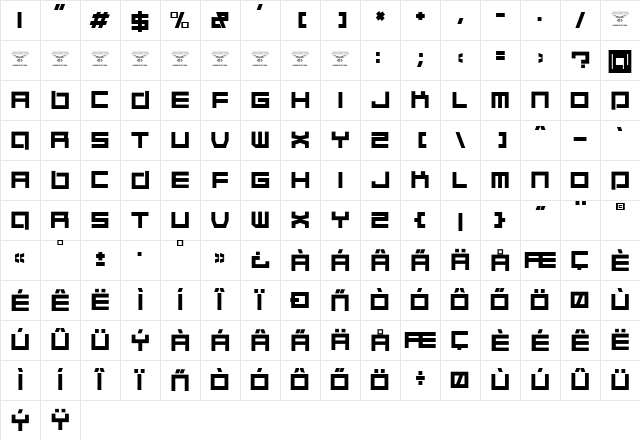
Quaalude hulk Regular Free Font
Quaalude hulk Regular
Foundry: Font Monger
Designer: Chris Vile
Quaalude hulk Family
Design Context for Quaalude hulk
Quaalude hulk is a composed and adaptable typeface that performs quietly and consistently across a wide range of design contexts.